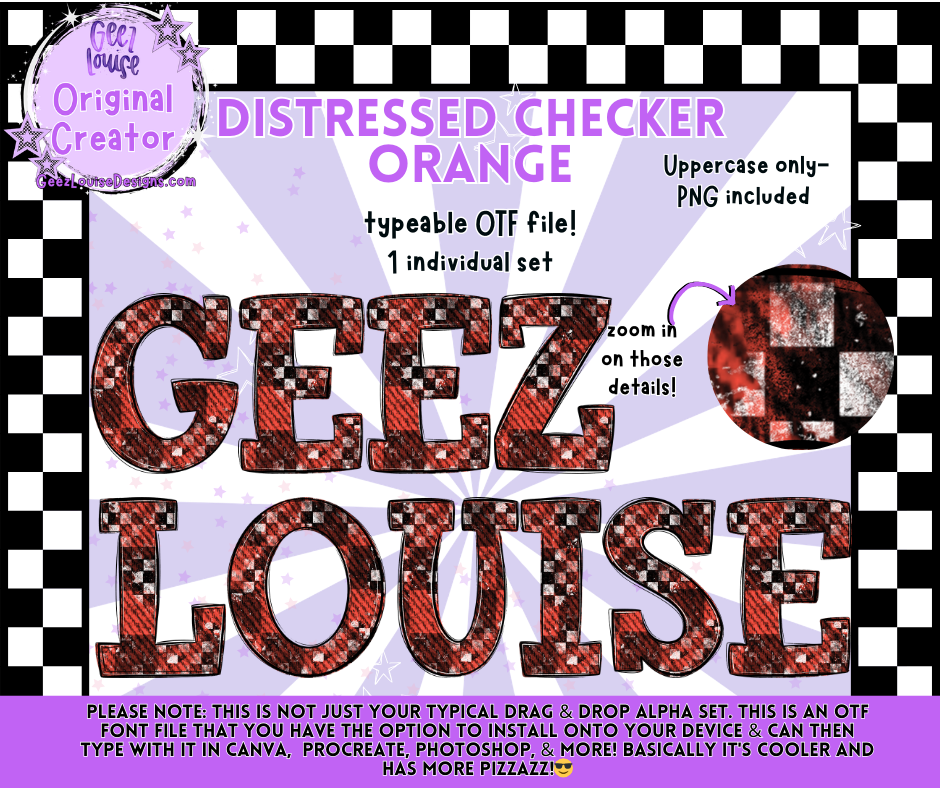
DISTRESSED CHECKER ORANGE — Typeable OTF Alpha Font + PNGs
Sporty, bold, and full of personality — Distressed Checker Orange brings that perfect mix of grit and energy. With its worn checkerboard texture and vibrant orange palette, this typeable OTF font is a must‑have for team designs and boutique graphics.
• Uppercase A–Z
• Distressed orange checker textures
• Clean, crisp print‑ready edges